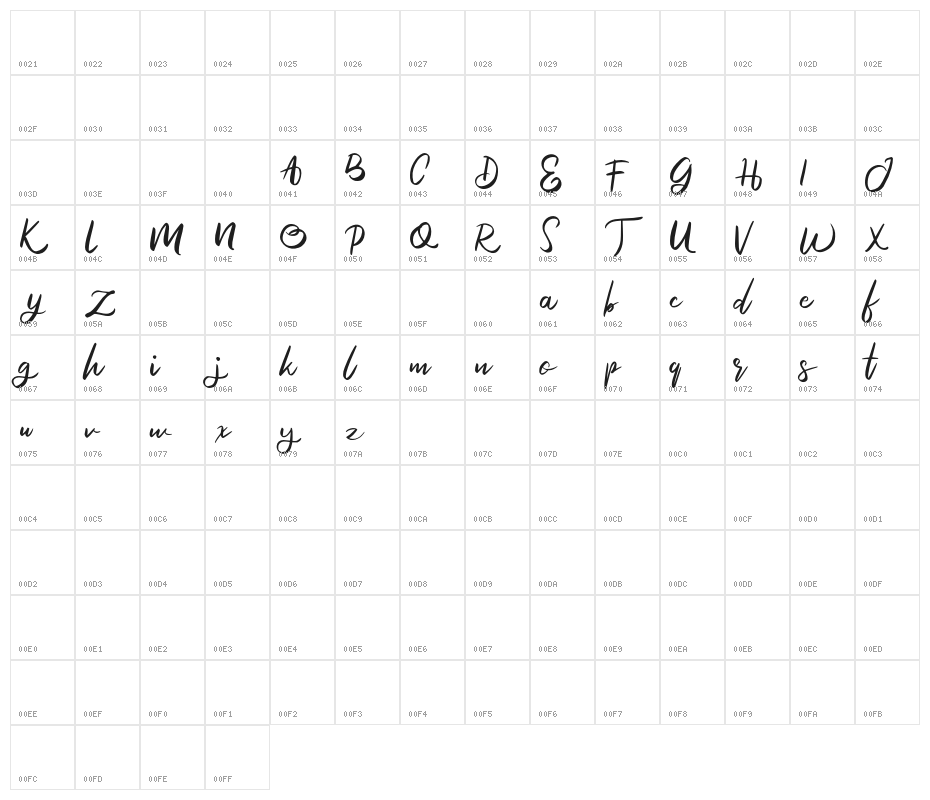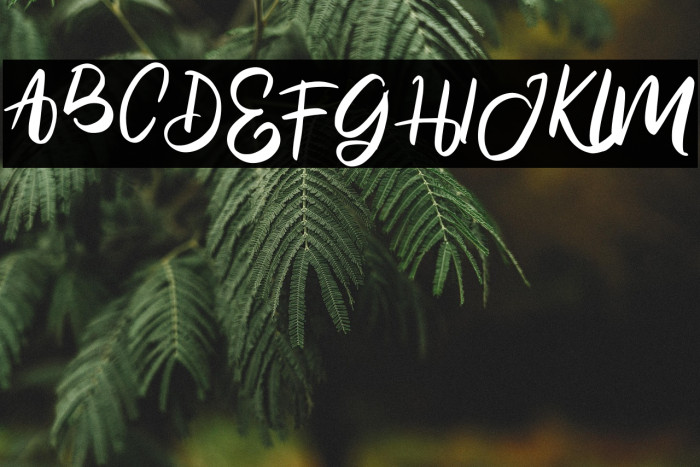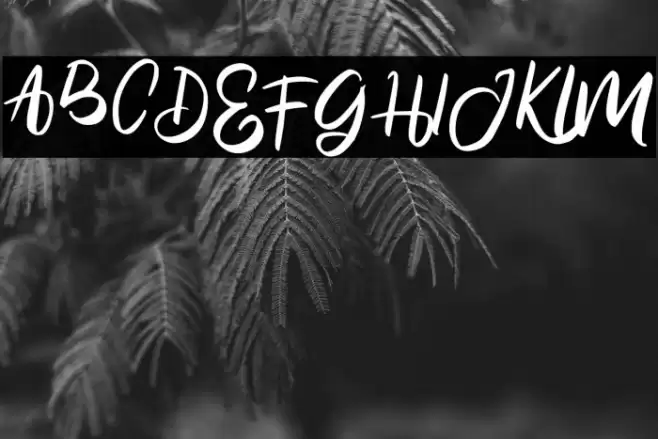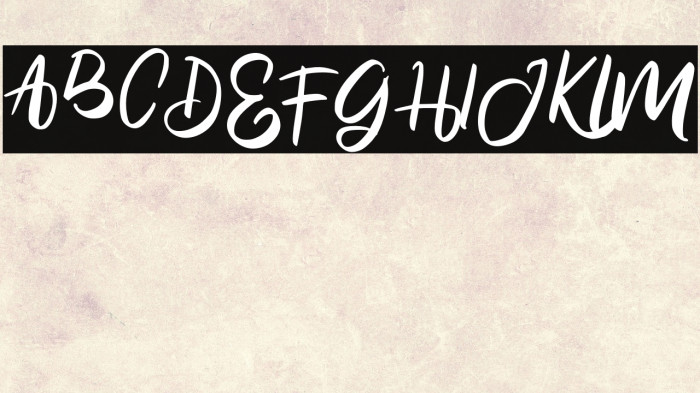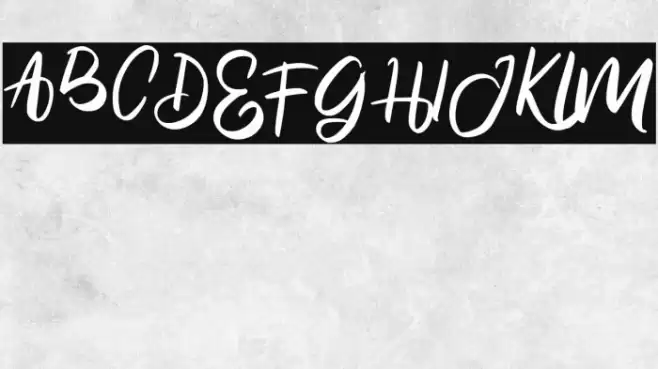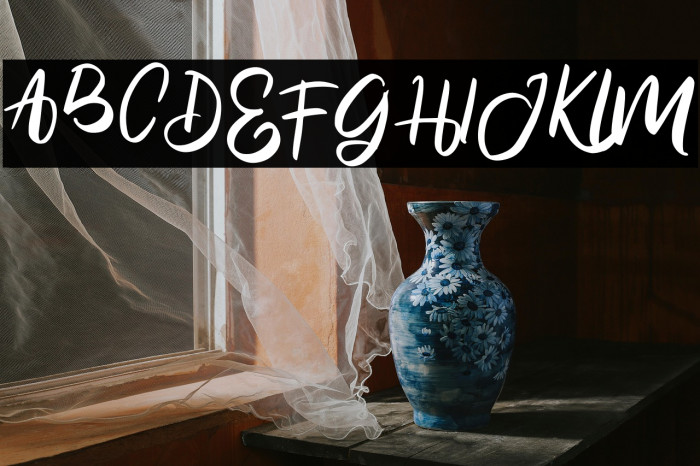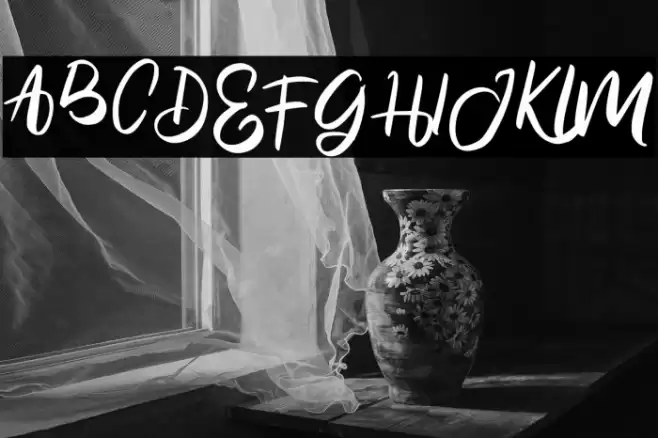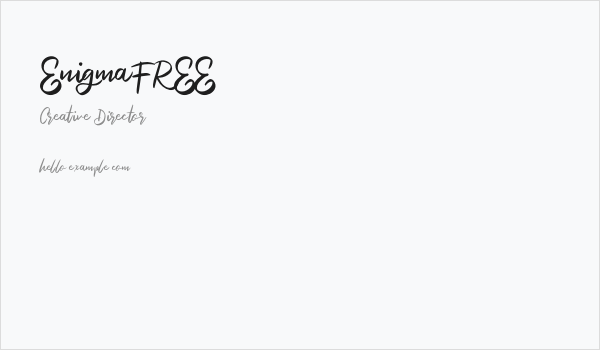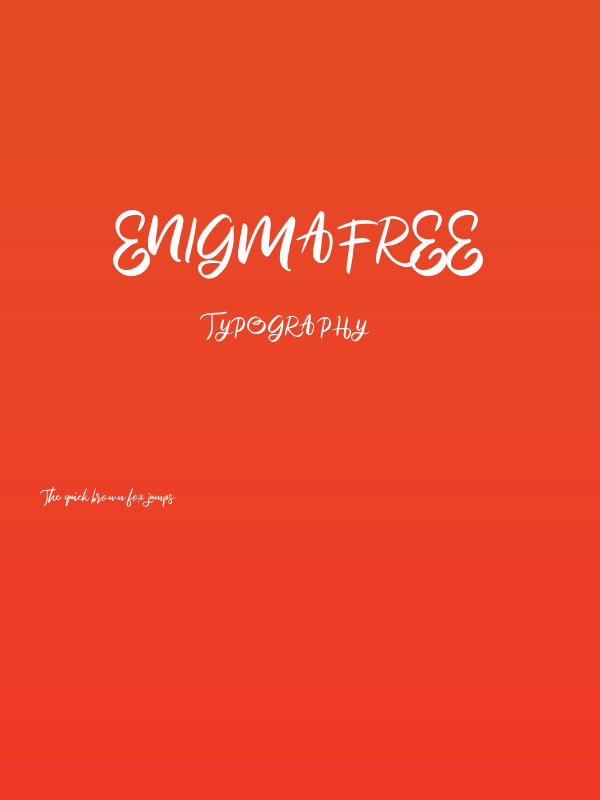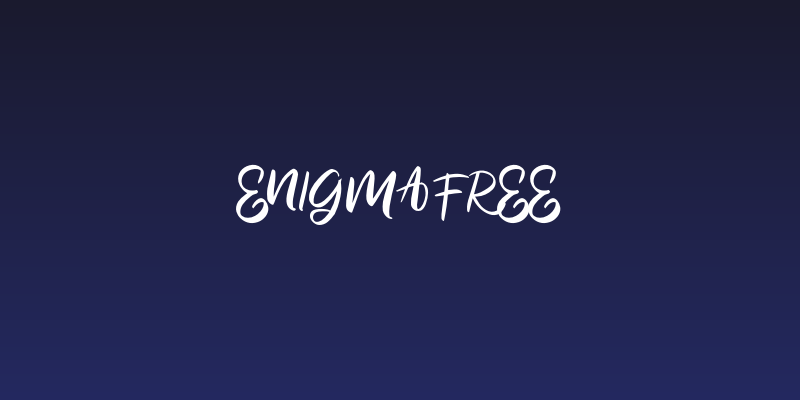
EnigmaFREE Font
EnigmaFREE Description
This font features a dynamic and expressive handwritten style, characterized by its fluid, cursive strokes and varying line thickness. The uppercase letters are bold and slightly slanted, giving a sense of movement and energy. The lowercase letters maintain a consistent flow, with some characters extending below the baseline, adding to its artistic flair. The overall appearance is both elegant and casual, making it suitable for creative and informal applications. The font's unique personality is enhanced by its playful loops and swashes, which contribute to its distinctive charm.